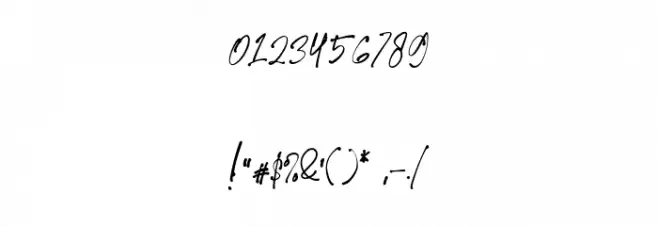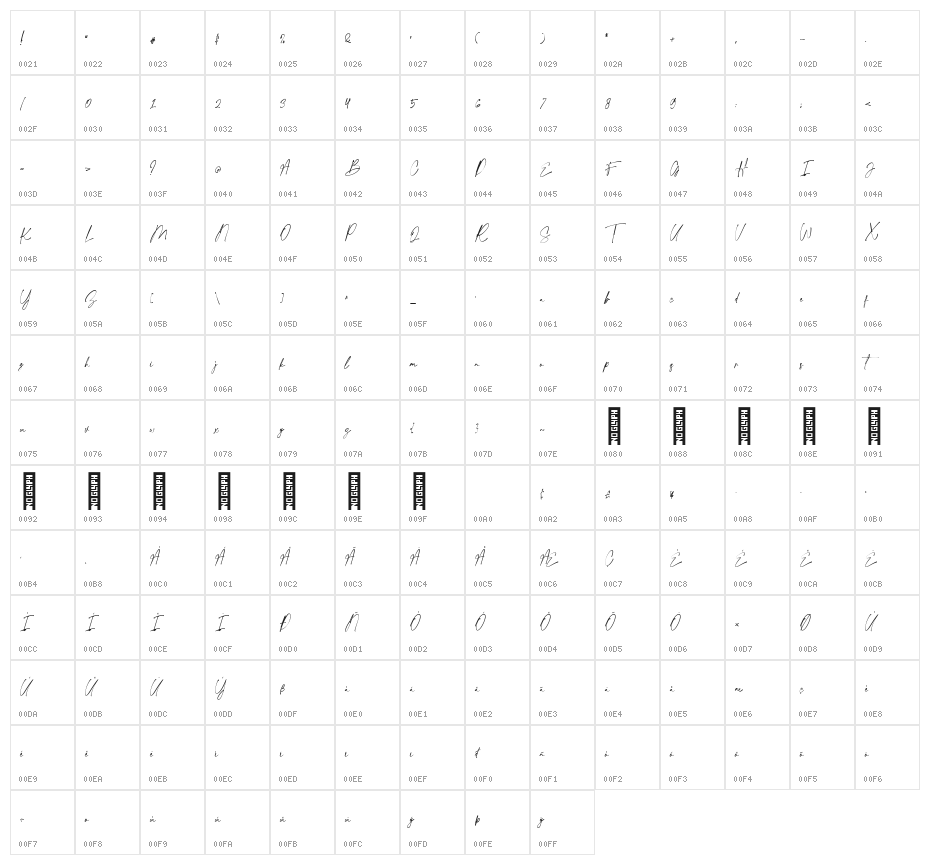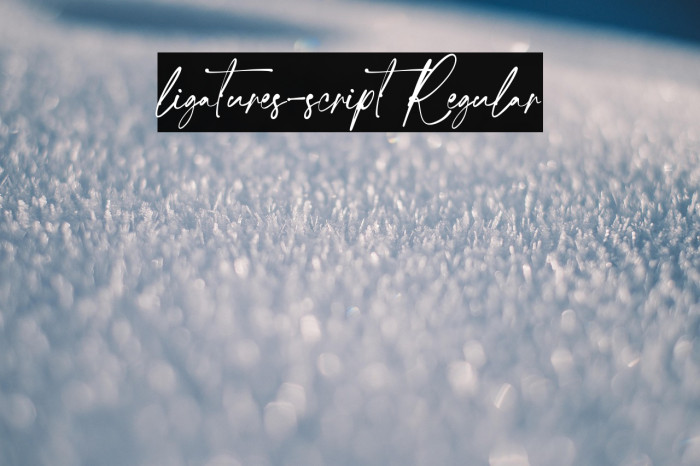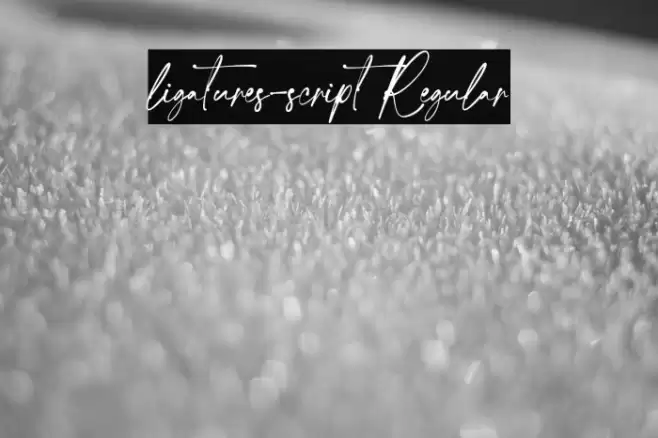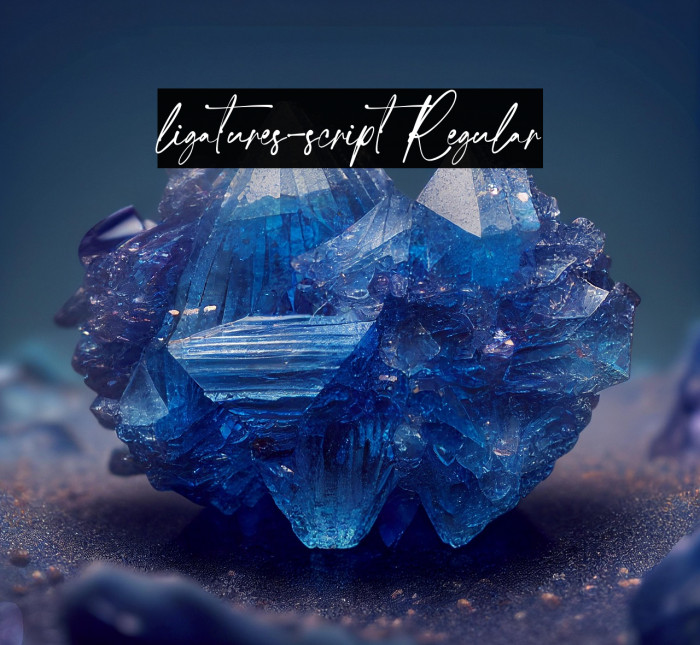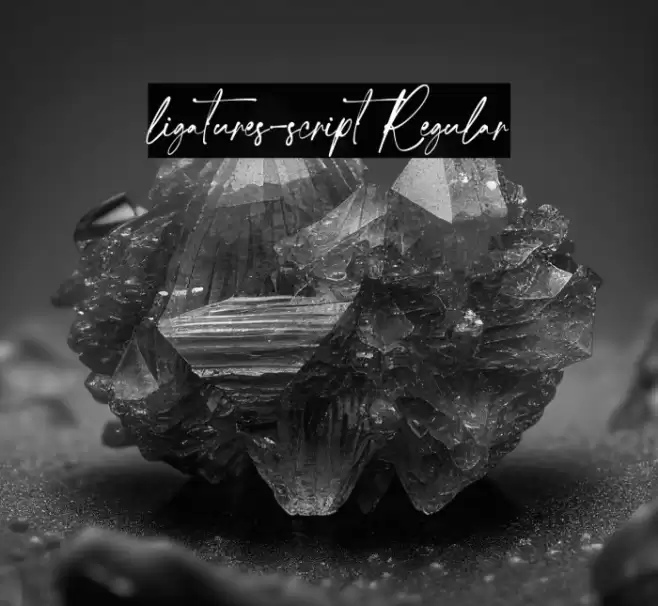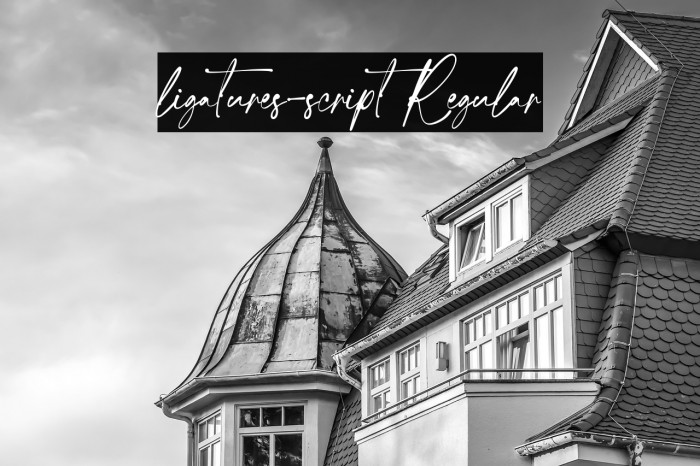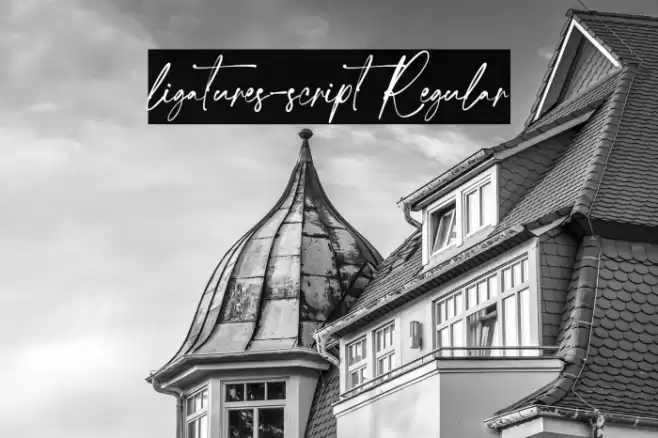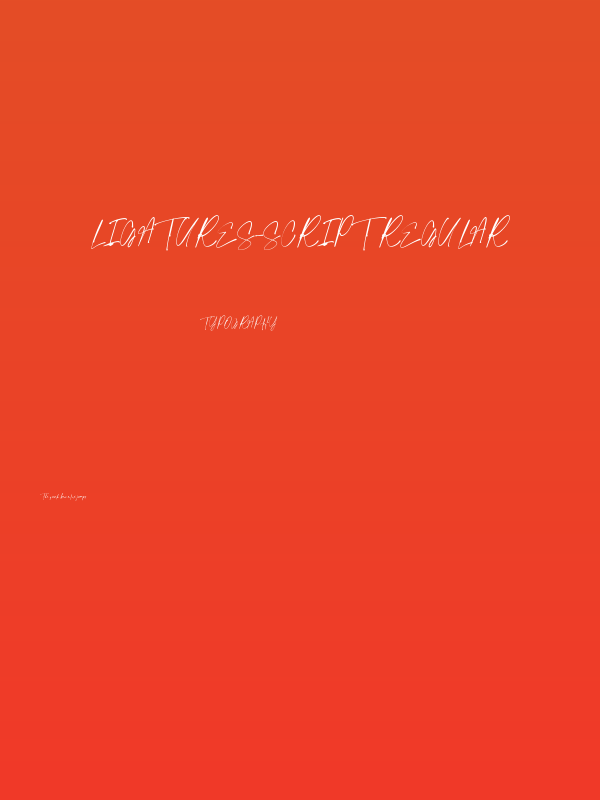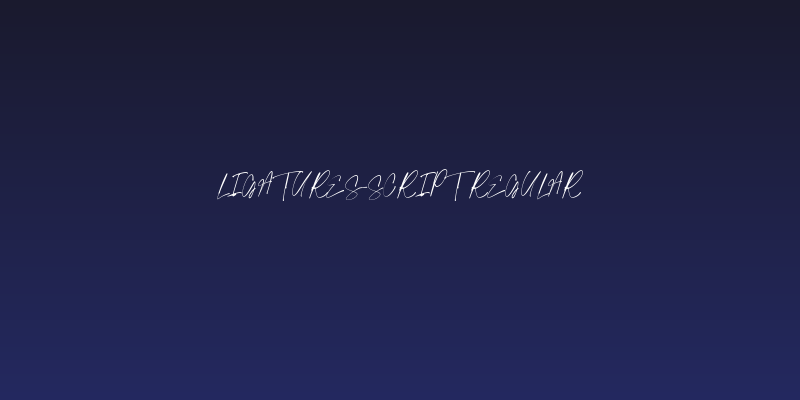
ligatures-script Regular Font
ligatures-script Regular Description
This script font features a flowing, handwritten style with elegant ligatures that connect the letters seamlessly. The uppercase letters are tall and slightly slanted, giving a dynamic and lively appearance. The lowercase letters maintain a consistent flow, enhancing readability while preserving the artistic flair. Numbers and special characters are crafted with the same attention to detail, ensuring a cohesive look across all text elements. The font's thin strokes and delicate curves make it ideal for projects that require a personal touch, such as invitations, greeting cards, and branding materials.